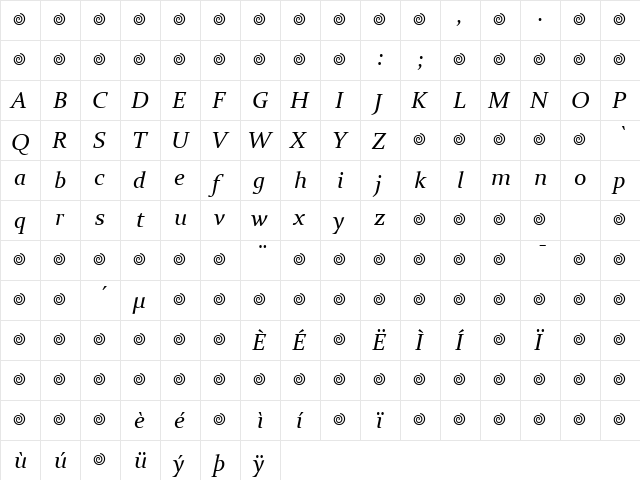
Constantia Italic
| Foundry | Microsoft Corporation |
| Designer | John Hudson |
Design Context for Constantia Typeface
Constantia offers clean, dependable letterforms without strong stylistic allegiance, making it a practical choice for designers who need flexibility. The dynamic lean of this cut emphasises speed and emphasis in any layout.
Pro Tip: Use Constantia for emphasis, pull quotes, and subheadings where its slanted energy can add rhythm to the layout.